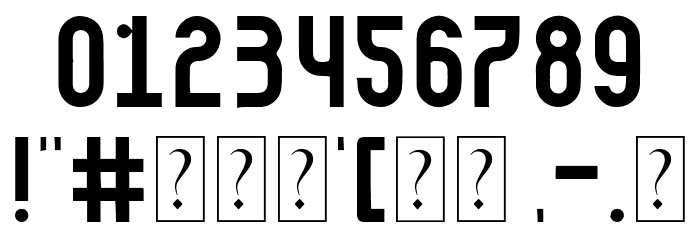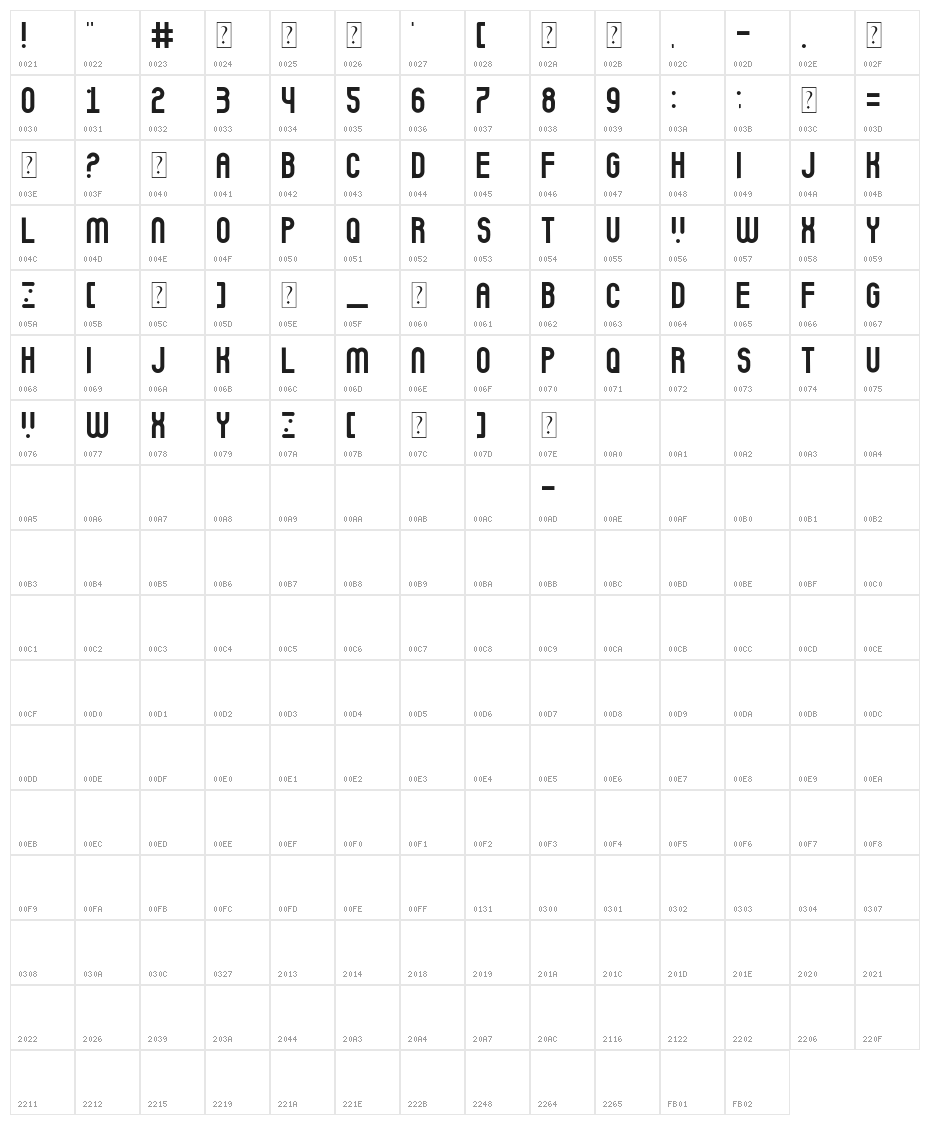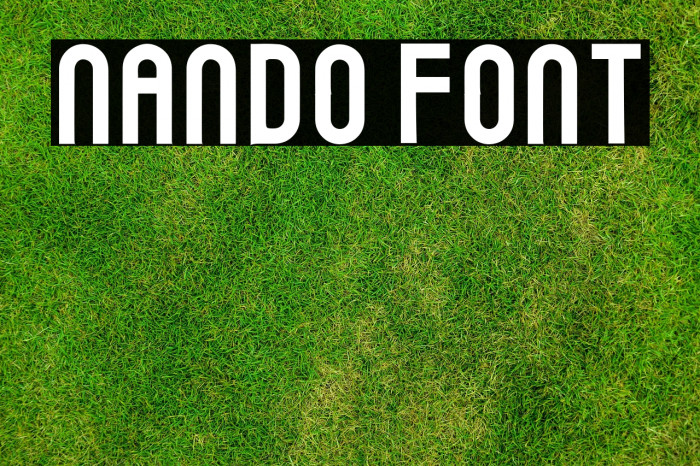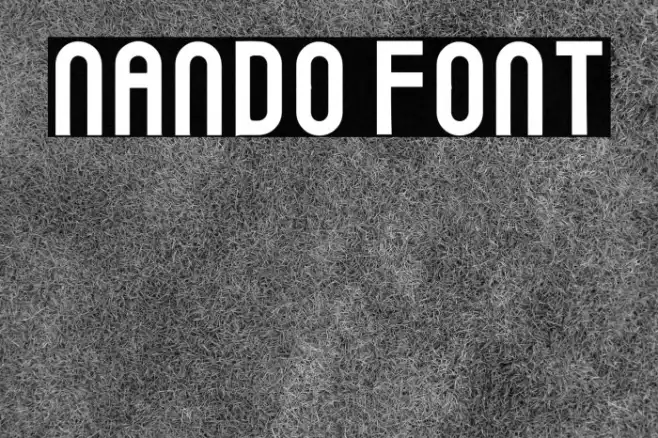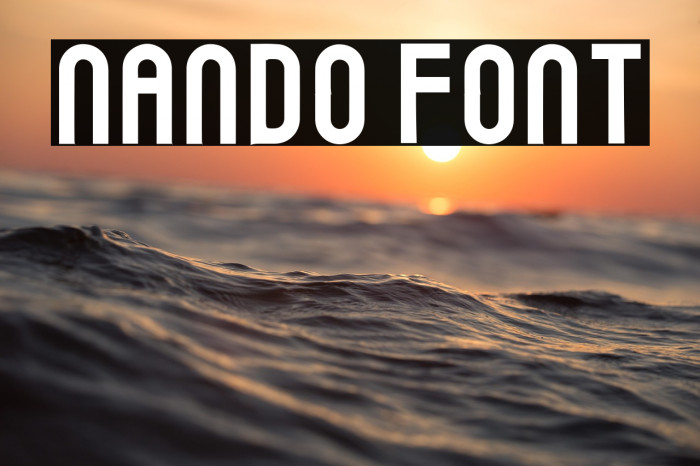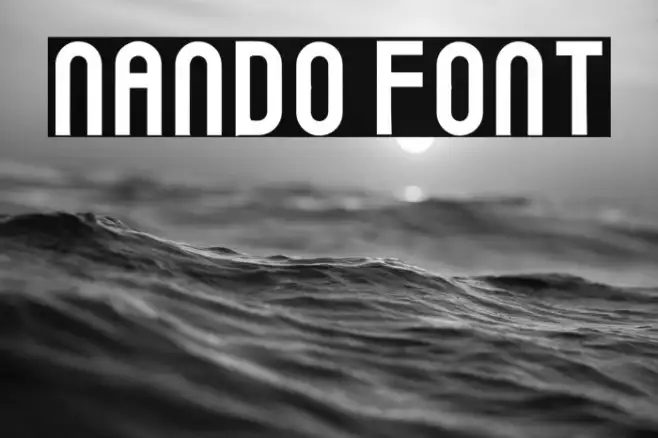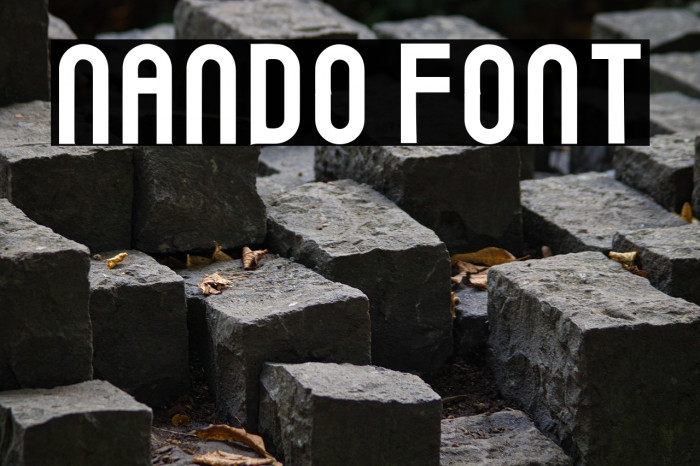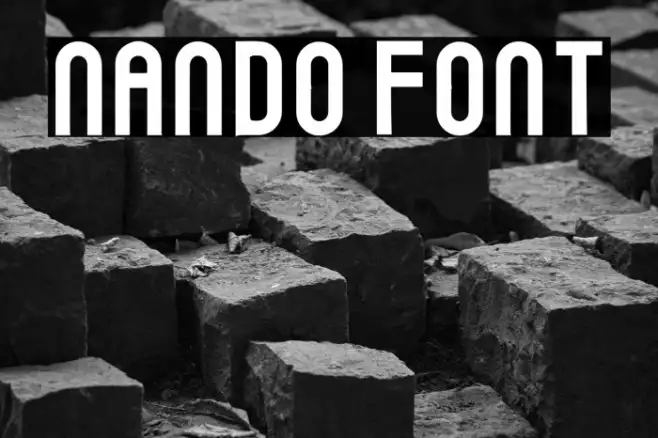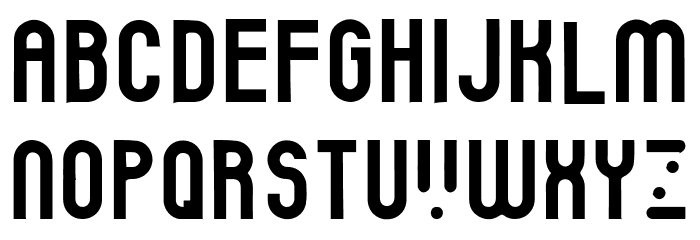
Nando Font
Nando Description
This font features a bold and geometric design with a modern flair. The characters are constructed with uniform stroke widths, giving it a clean and structured appearance. The uppercase letters are tall and slightly condensed, while the lowercase letters maintain a consistent style, enhancing readability. The numerals are distinct and align well with the overall aesthetic. Special characters are uniquely styled, adding a touch of creativity. This font's design is versatile, making it suitable for various applications where a contemporary and impactful look is desired.